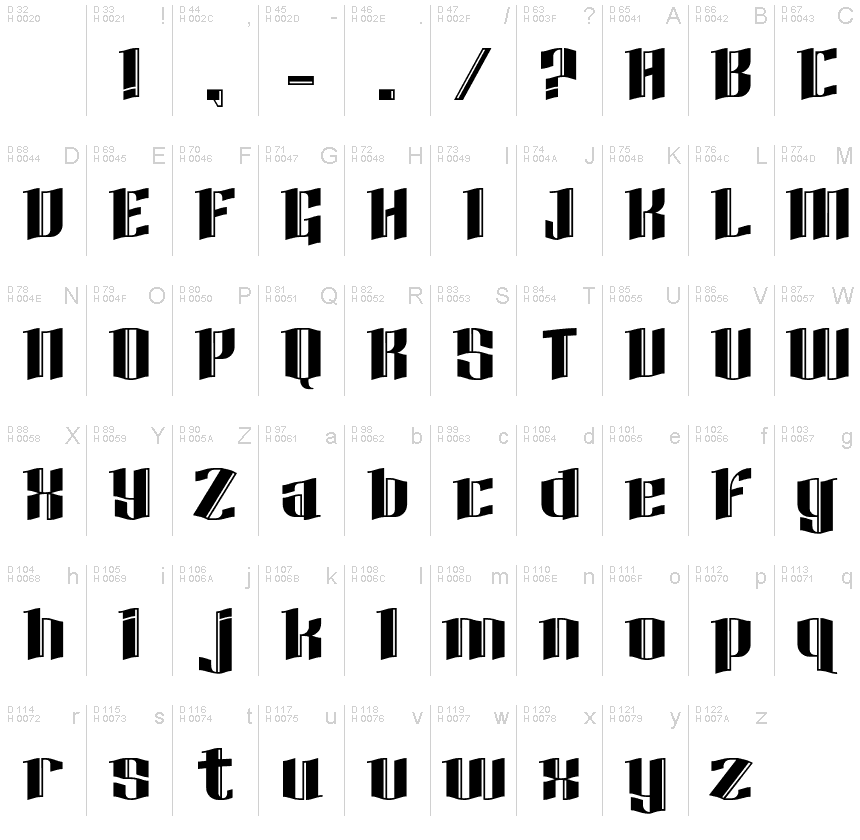
Radborn-Regular
Radborn, the retro-inspired display font by Type on Studio, is here to add a bold statement to your next project. With its extra-bold weight and unique vintage style, Radborn is perfect for giving your designs that nostalgic touch. Use it for anything from logos and branding to posters or packaging. The wide range of applications makes it a versatile choice for any creative project that needs a touch of boldness and personality. Whether you're designing for a music festival or crafting a retro-inspired menu, Radborn will make sure your message stands out loud and clear.